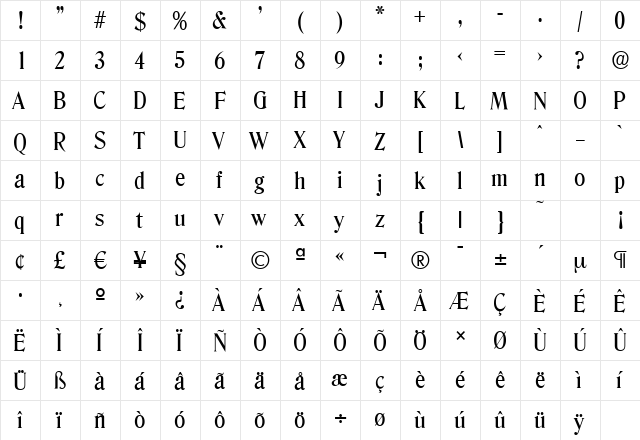
DenverSerial-Medium Regular
Design Context for DenverSerial-Medium Typeface
DenverSerial-Medium takes a measured approach to typography — its balanced proportions and neutral character make it a reliable workhorse for both digital and print work.